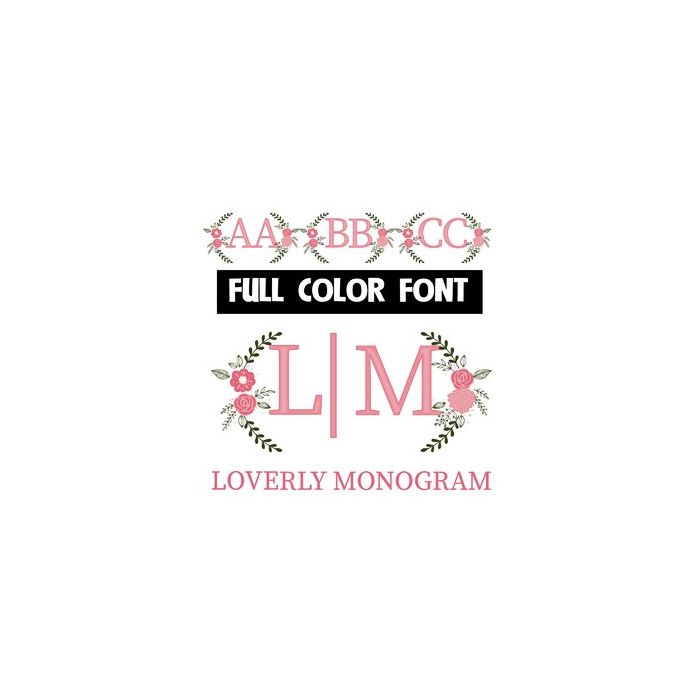
This pretty full-color monogram font features an uppercase with a flourish to the left and a lowercase with a flourish to the right to create pretty double lettered monograms.